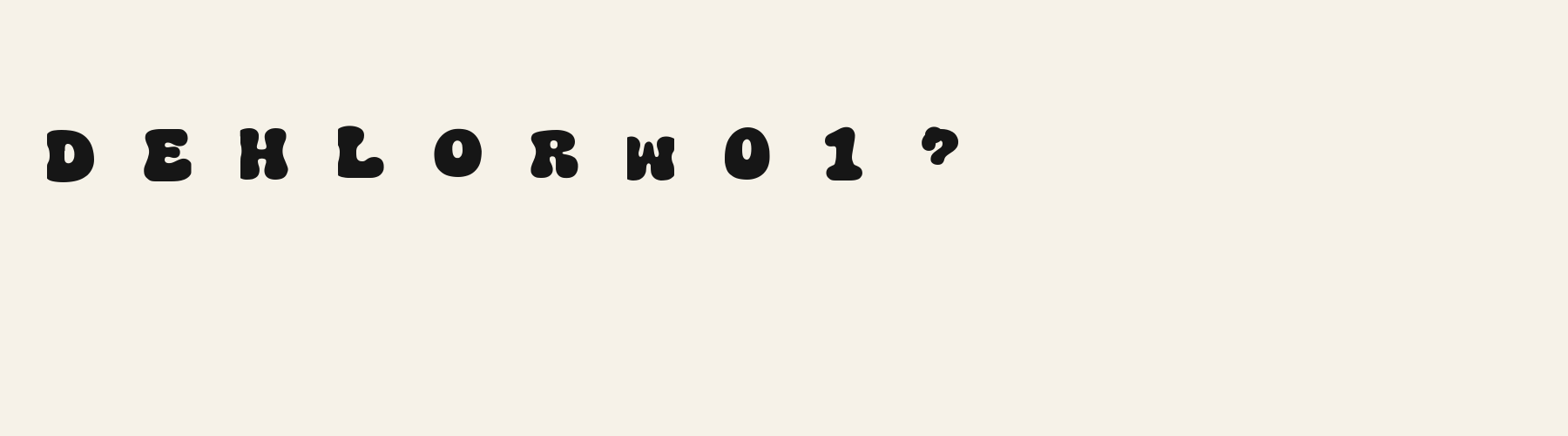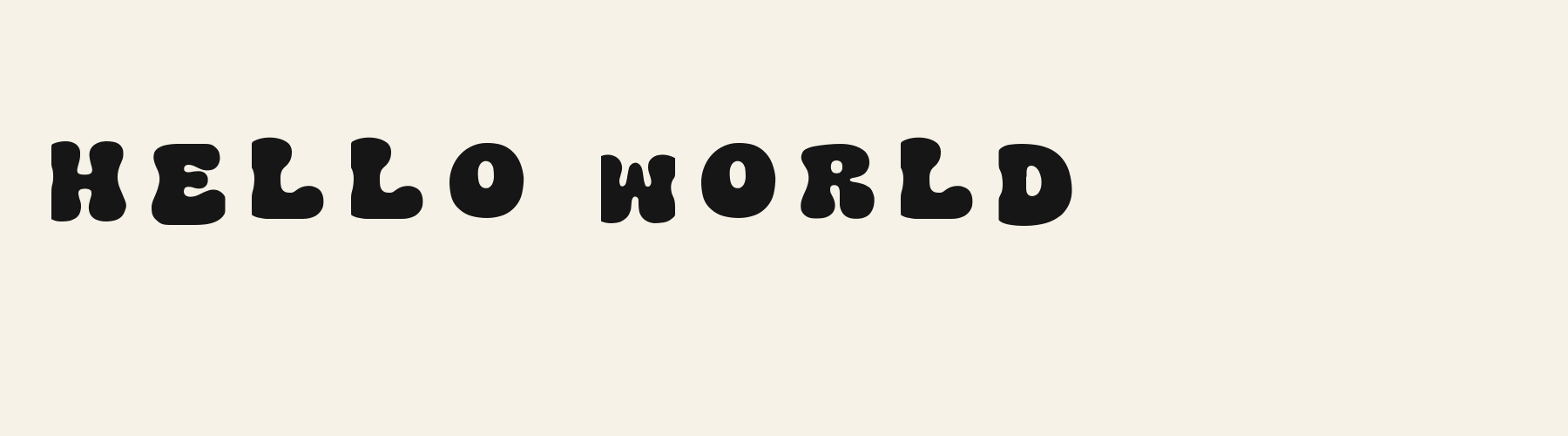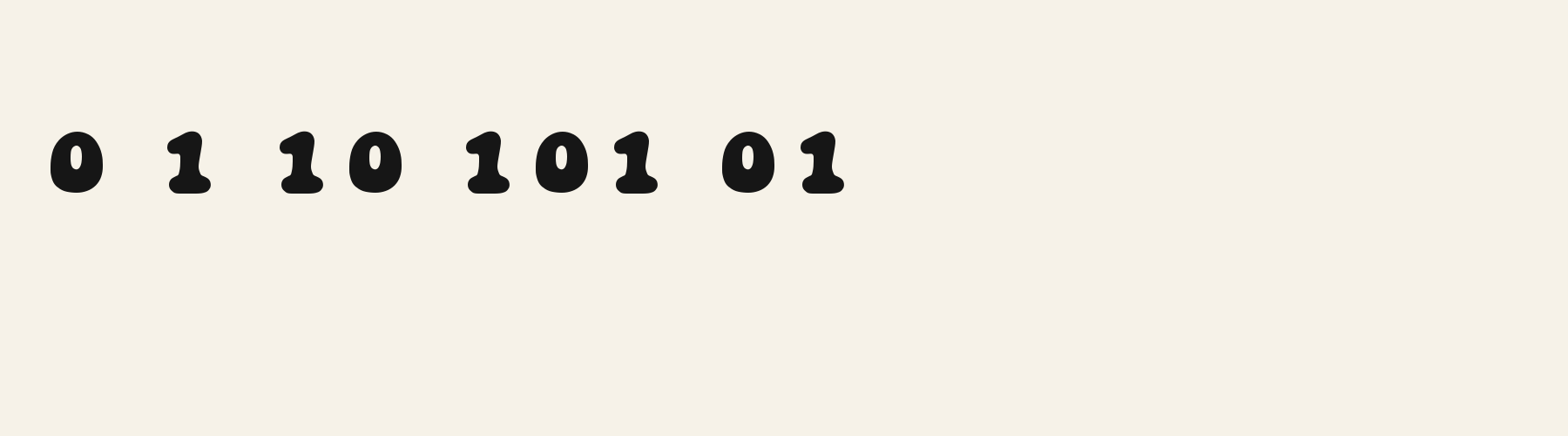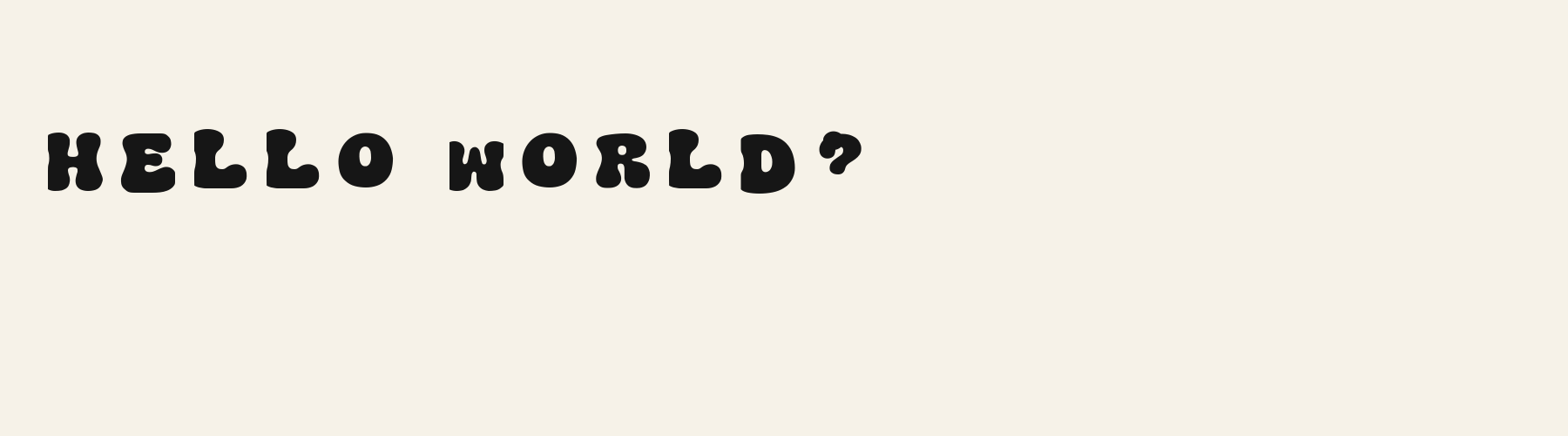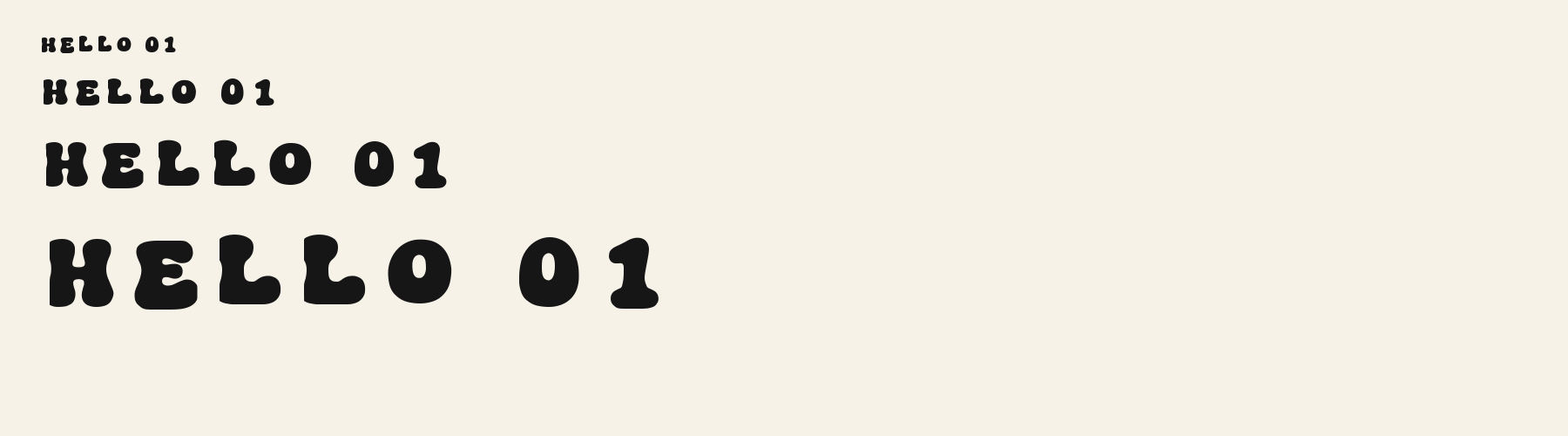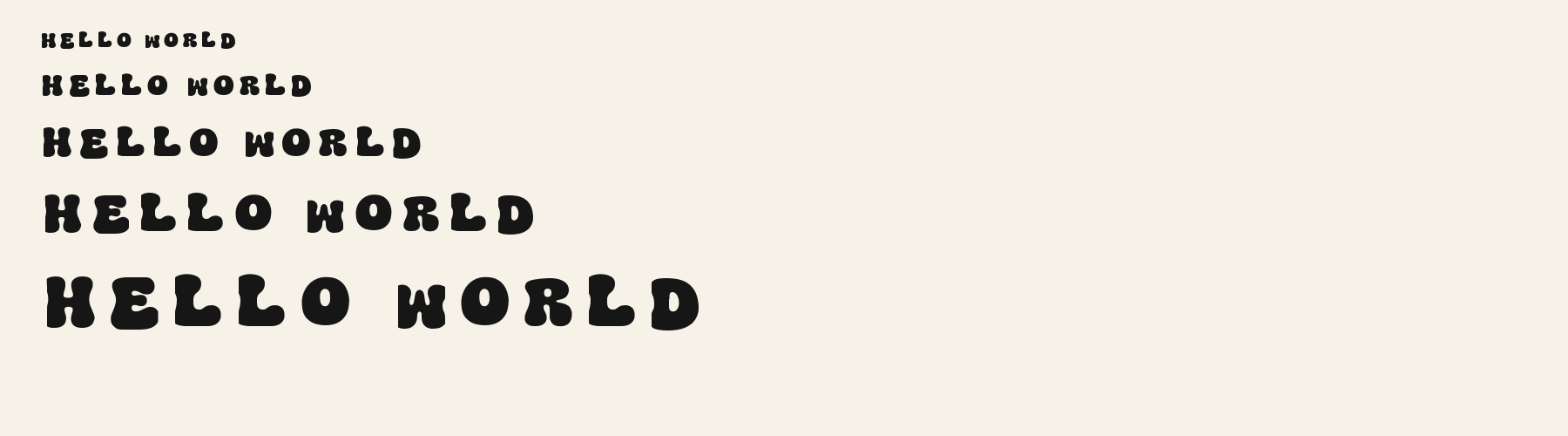
Bubble Groovy Wide Pinched Waist Retro Font
Bubble Groovy Wide combines broad rounded letters with inward dents that keep the heavy shapes from feeling rigid.
Pinched Waist Retro Letterforms
Bubble Groovy Wide combines broad rounded letters with inward dents that keep the heavy shapes from feeling rigid. The H swells at the top and bottom, narrowing around its middle bridge. The E has bulbous outer arms and a shorter middle tongue, leaving curved openings along its right edge. The O wraps a thick, nearly circular bowl around a small upright counter. Rounded terminals and softly uneven contours give the capitals a relaxed retro character. In the specimen words, the substantial L feet and dense bowls create a cheerful, weighty line with a gently undulating outline.
Inspect the small counters in O and R, the middle opening of H, and repeated L feet in your wording. Check spacing pair by pair. The supplied own-font specimens show Latin capitals; preview lowercase separately, and verify accented Latin or other scripts with an appropriate companion.
Use this face for short primary headings, then try a restrained sans serif for descriptions and labels. Its thick bowls, pinched joins and broad feet already supply strong texture; lighter supporting text can give detailed information a calmer rhythm.
Bubble Groovy Wide: letterforms and layout
Compare original spacing with a slightly wider setting. Watch the broad L feet and the gap before W: extra spacing may separate the rounded silhouettes, while tighter spacing gathers them into a heavier word shape.
Bubble Groovy Wide gives the uppercase phrase broad O bowls, substantial L feet and small counters surrounded by heavy black. Try it when the lettering should occupy a generous horizontal band.
Retro Disco Groove also has pinched uppercase stems, but its O looks more upright and its L has a narrower foot with a pronounced upturned tip. Try it for a more vertically shaped uppercase rhythm.
Poster. Broad bowls and swollen terminals give a short event title a substantial, playful silhouette with plenty of rounded movement. PEACH POP
Product label. The dense black forms and small rounded counters suit a compact product name with a soft, exuberant character. HELLO WEEKEND
Social post. Pinched stems and generous letter widths turn a brief social message into a bold band of buoyant lettering.
The scenes are illustrations drawn on this page with Bubble Groovy Wide itself, not client work.
Its lowercase is tall: the x-height is 78.9% of the cap height, against a median of 74.4% for display fonts, taller than 91 of the 116 other display fonts. Ascenders on b, d, h, k and l rise 7.3% above the capitals, and descenders on g, j, p, q and y drop 16.2% of the cap height below the baseline, shallower than 105 of the 116 other display fonts. Bubble Groovy Wide runs 9.2% wider than the median for display fonts: an average lowercase letter, spacing included, is 95.1% as wide as the capitals are tall (an average capital, 102.8%). The o is close to a circle, 1.14 times as wide as it is tall, and M is the widest capital, at 1.07 times the width of H. The O stops 3.3% of the cap height short of H and dips 1.1% below the baseline.
The letters stand upright, leaning less than 2.5° either way. Vertical stems measure 37.8% of the cap height, heavier than 56 of the 58 other display fonts. Ink covers 58.1% of each lowercase letter's box (its advance width by the cap height), darker than 113 of the 116 other display fonts. The contrast is mild: the sides of o and O are 1.31 times as thick as their tops and bottoms.
Its 95 characters include 52 Latin letters, plus 43 figures, punctuation marks and symbols; there are no accented Latin letters beyond A to Z. The word space measures 55.5% of the cap height, and the blank space either side of a lowercase letter takes up 10.1% of its width. The font carries no kerning, so spacing comes from each letter’s own side bearings. The figures have different widths, so columns of numbers set in Bubble Groovy Wide will not line up exactly.
- What fonts pair well with Bubble Groovy Wide?
- Ion Hairline (sans serif), Halo Light (sans serif) and Retro Serif Newsprint (serif) are drawn on a different letter structure, so Bubble Groovy Wide can carry the headings while one of them sets the text. Each has its own page with a type tester for trying the pair.
- Which fonts are similar to Bubble Groovy Wide?
- In the same display style: Terrace Deco (lighter strokes, lower x-height); Rounded Bauhaus Soft (lighter strokes, 13% wider); Lounge Inline (lighter strokes, inline effect).